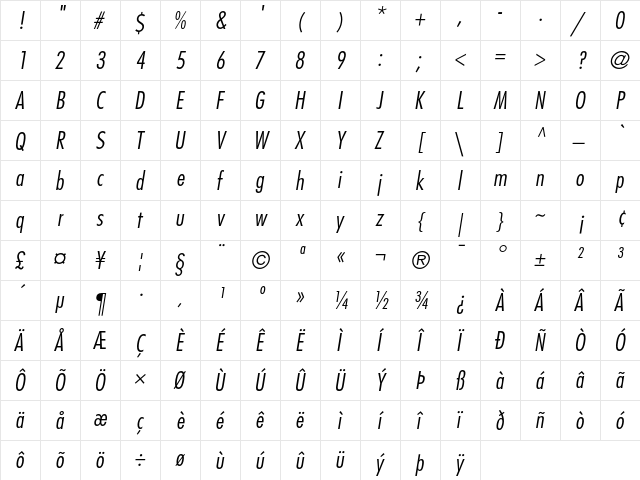
Futura Condensed Light Oblique Font Preview
Design Context for Futura Typeface
Futura channels digital-age aesthetics through its sharp, structured letterforms — ideal for brands that want to signal innovation. Its italic angle brings a sense of urgency and motion to the letterforms. The delicate stroke weight brings airiness and refinement to layouts. The condensed width makes it efficient for tight spaces without sacrificing legibility.
Pro Tip: Use Futura in combination with a neutral sans for body text. Let it define the brand voice in headlines while keeping reading comfortable elsewhere.